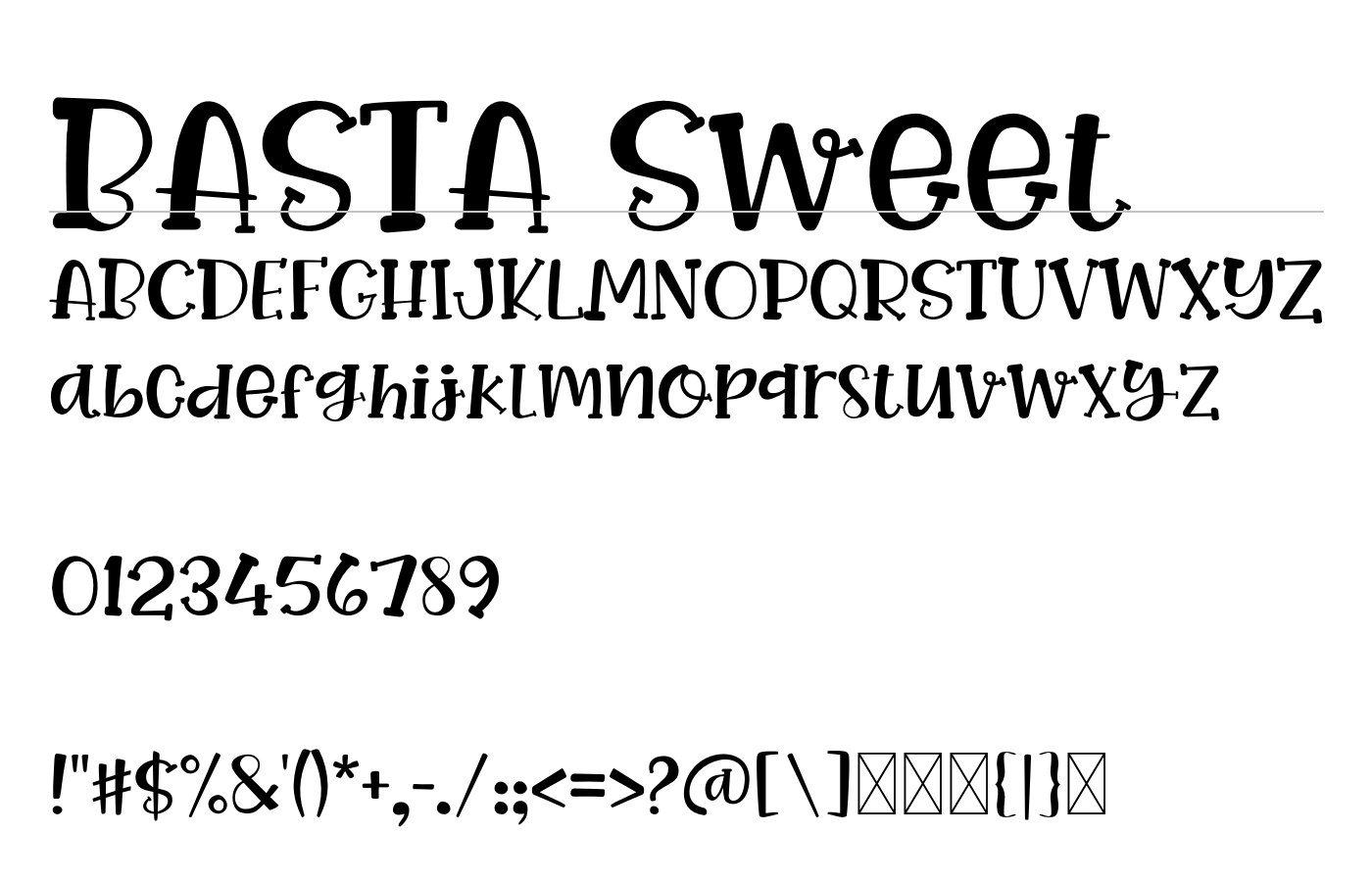
BASTA Sweet is a playful, hand-drawn serif font with a quirky, whimsical style that combines uneven strokes and charming curls. Its medium weight and slightly condensed forms create an inviting, casual feel perfect for fun, creative projects like children’s books, greeting cards, and lighthearted branding. This font adds a friendly and unique personality to headlines and logos where a touch of cheerfulness is desired.
BASTA Sweet Font
About BASTA Sweet Font
| Font family | BASTA Sweet Font |
| Designer | Qara Anass |